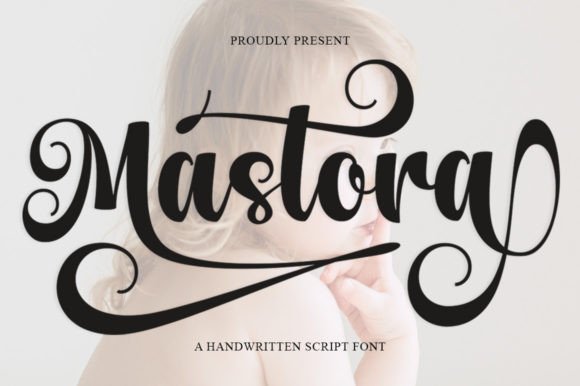
Introducing Mastora Font, the perfect choice for all your creative projects! Designed by WS Studio, this smooth and flowing handwritten font exudes elegance and style. With its timeless and unique style, Mastora is sure to capture your heart and inspire your imagination.
Crafted with care and attention to detail, Mastora is perfect for a wide range of design projects. Whether you're creating stunning invitations, beautiful logos, or eye-catching social media graphics, Mastora is the perfect tool to help you bring your vision to life.
One of the key features of Mastora is its PUA coding, which makes it incredibly easy to access all the glyphs and swashes. This means that you can unlock the full potential of this stunning font and create truly spectacular designs.
So why not fall in love with Mastora today? With its smooth and flowing lines, elegant style, and versatile range of glyphs and swashes, this font is the perfect choice for anyone looking to elevate their creative projects to the next level.